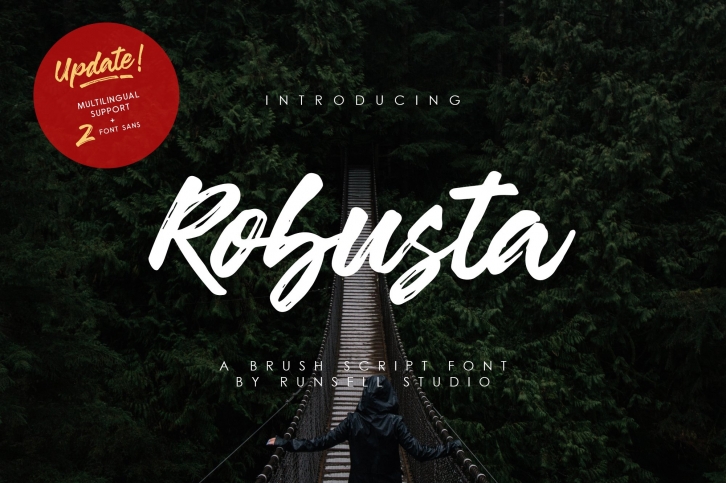
Robusta which has a brush script style. With quick dry strokes and a signature style, this font is best used for your design project that has the concept of fun, brave and sporty. Robusta can also be applied for lettering, logotype, branding, printing template, cover album and etc.
Robusta equipped with:
• Uppercase, lowercase, numeral and punctuation
• Stylistic alternates
• Swash
This font has added multilingual support - spread your message globally ÀÁÂÃÄÅAAÆÇCCDÈÉÊËEEÌÍÎÏLÑNNÒÓÔÕÖOŒØRR ŠSSTÙÚÛÜUUŸÝŽZZàáâãäåaaæçcc èéêëeeìíîïñnnòóôõöoœrršssùúûüuuýÿžzz